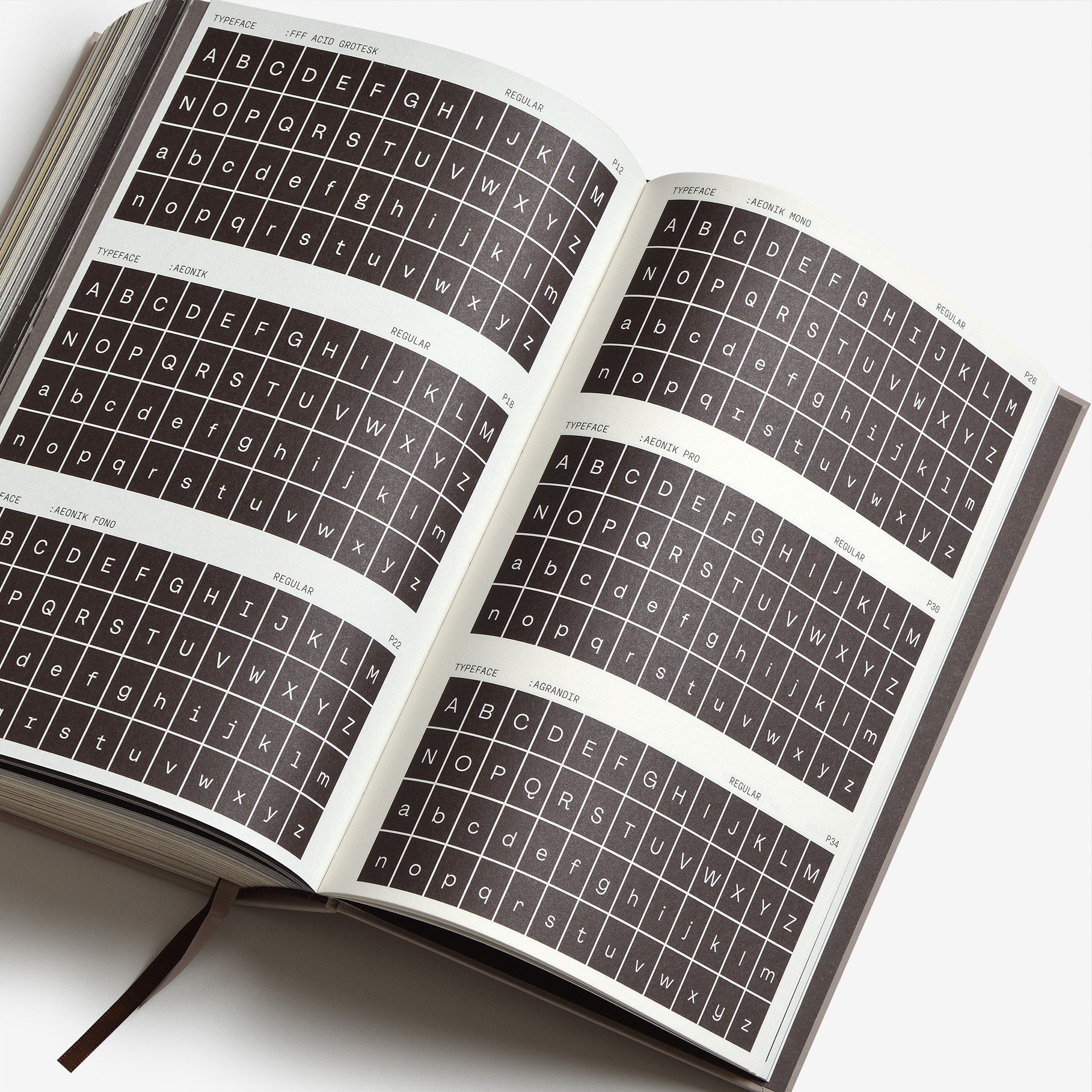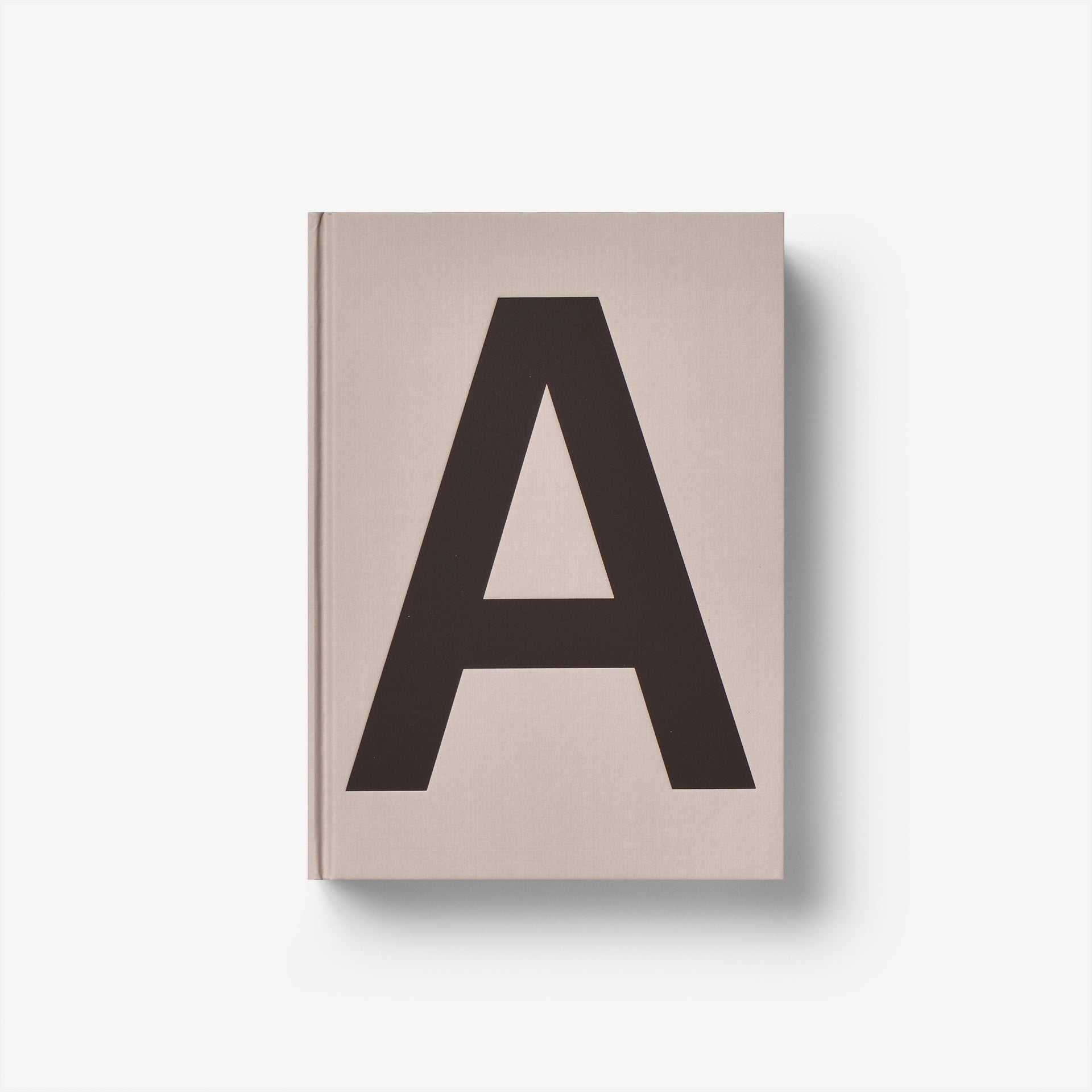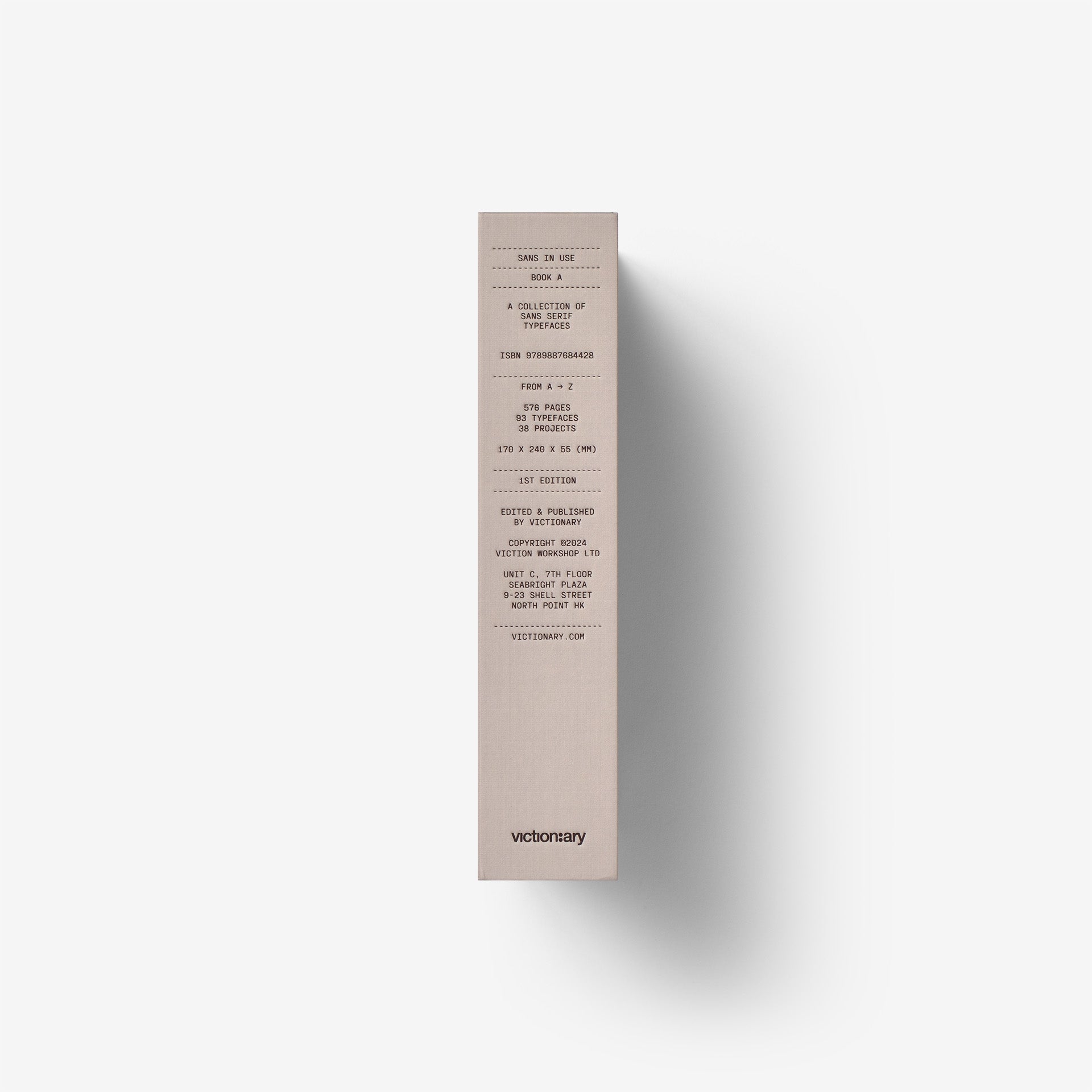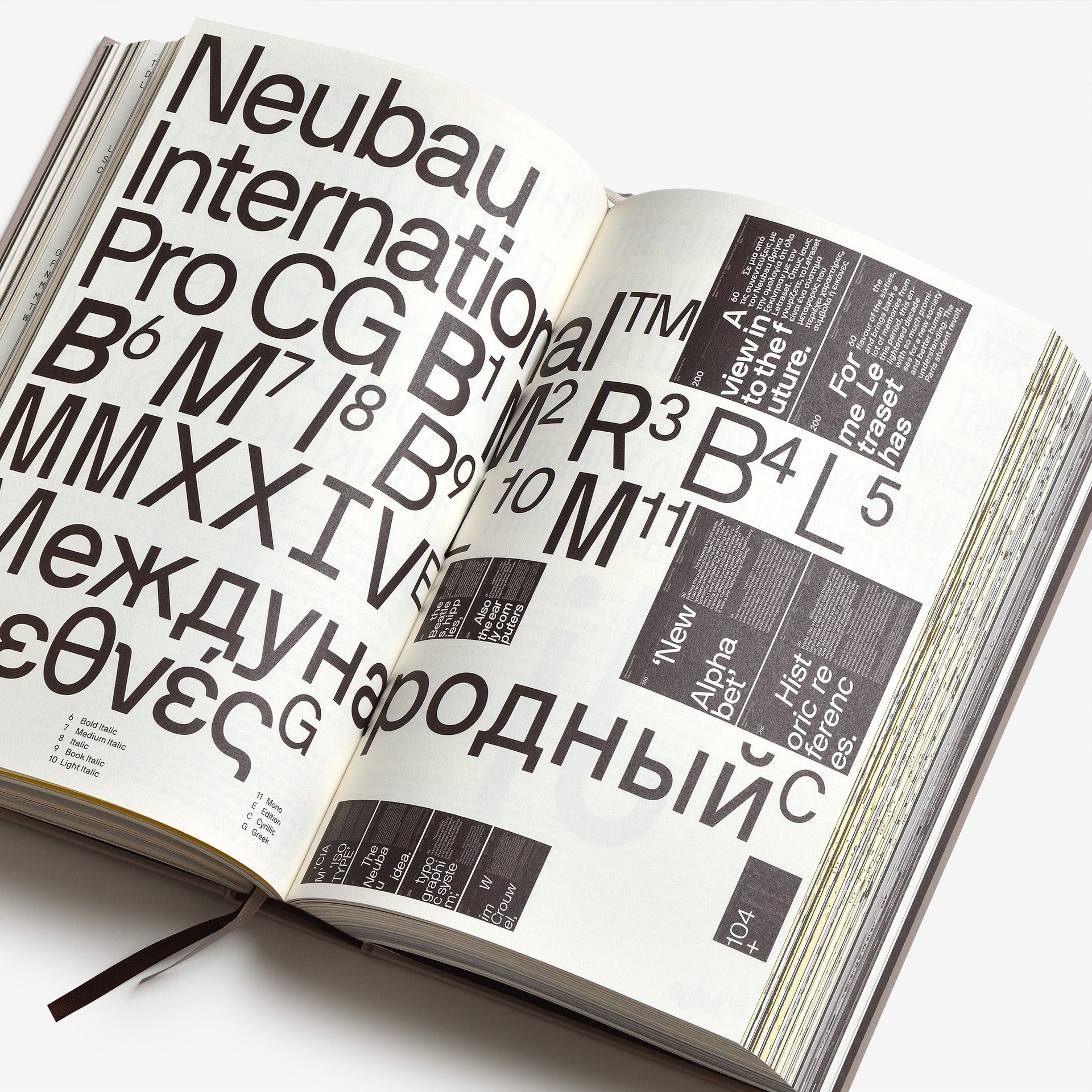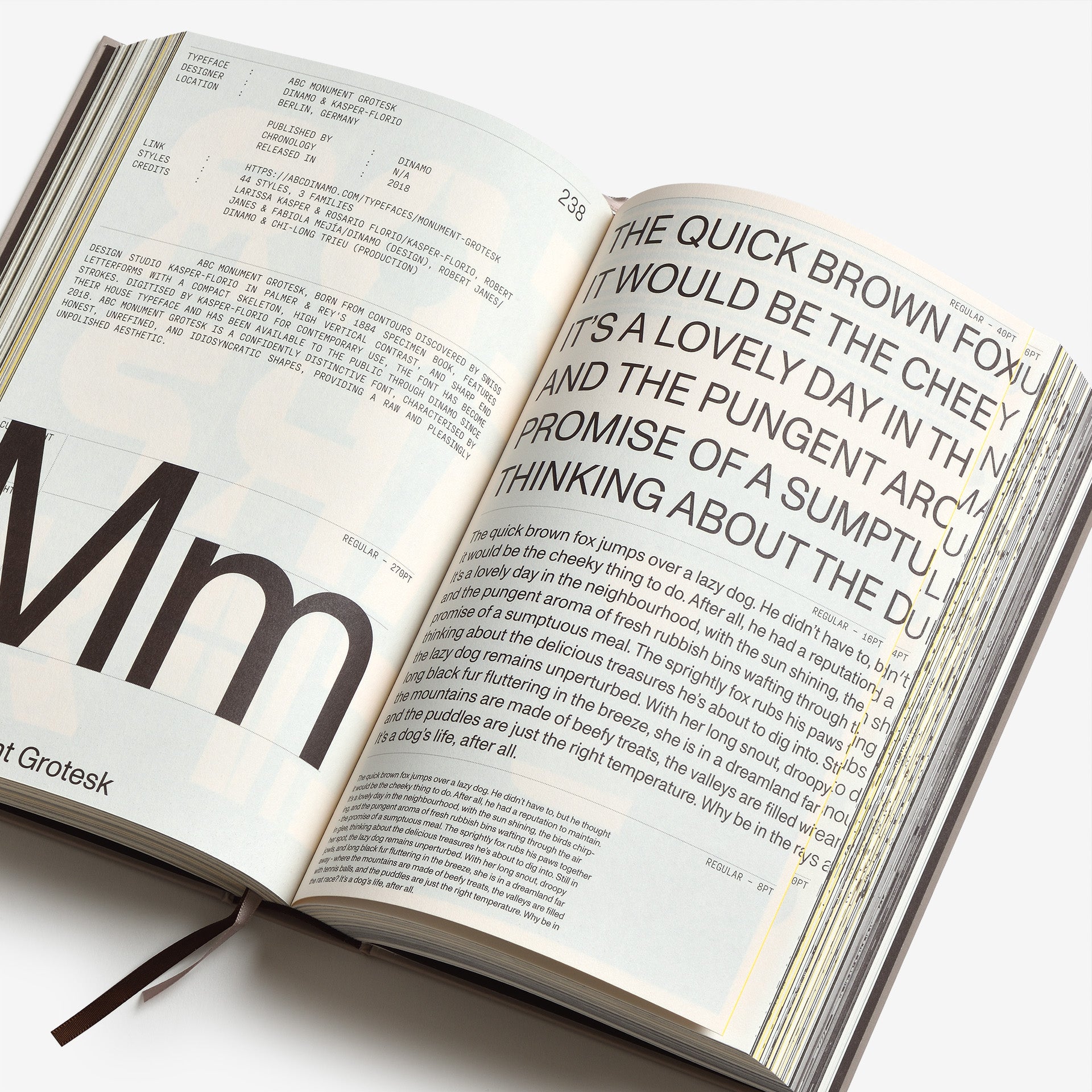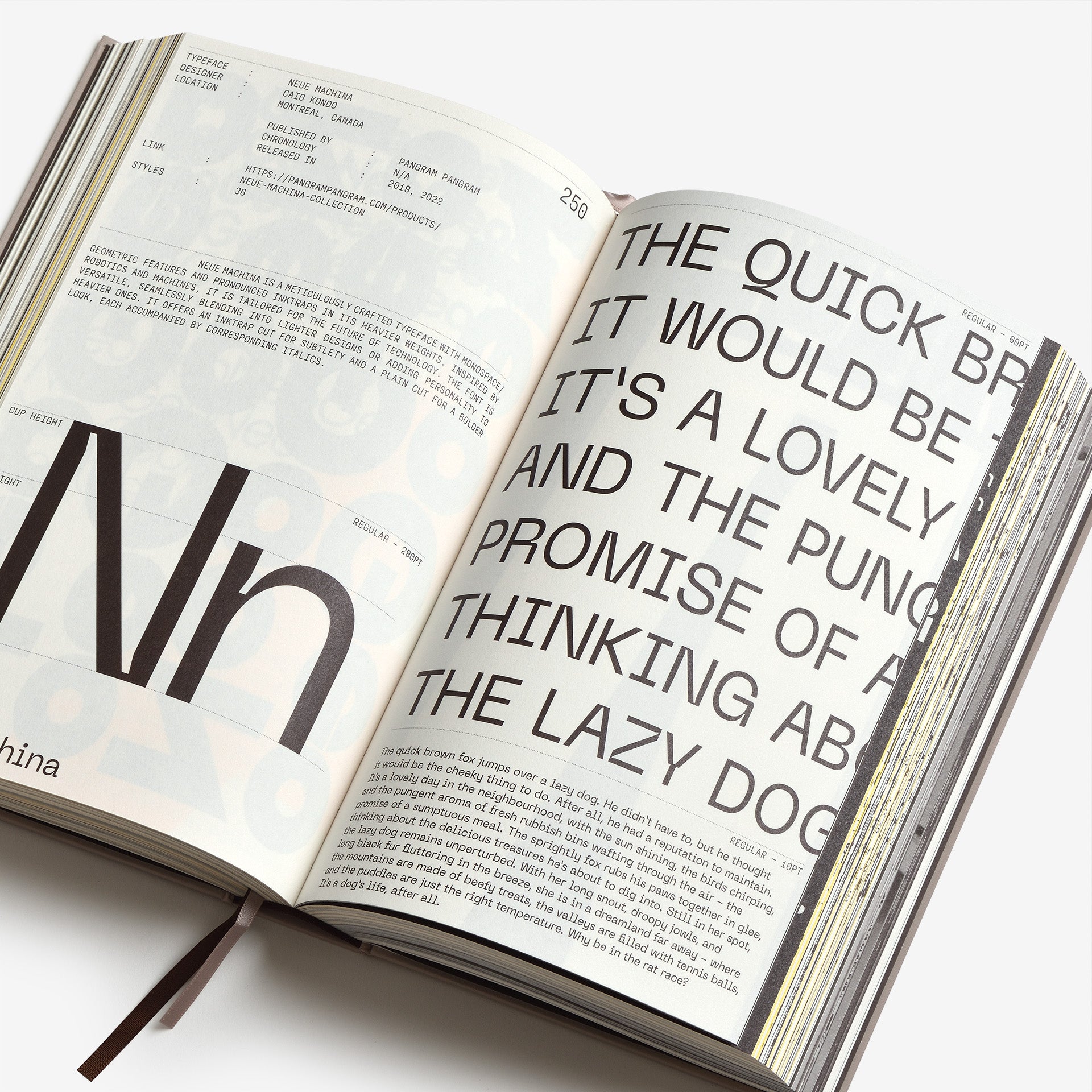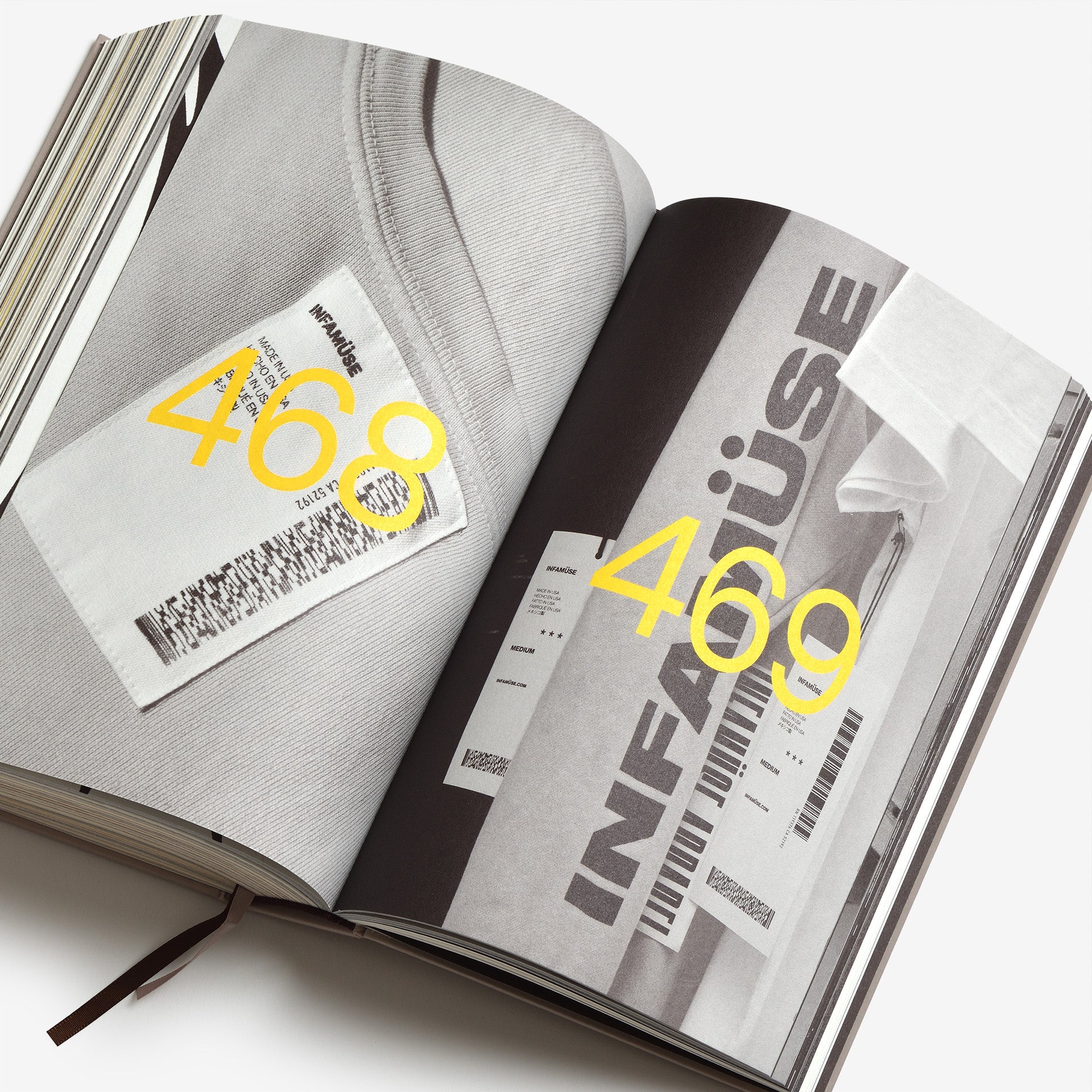
Sans in Use: A Collection of Sans Serif Typefaces
In the world of typography, it is not uncommon to see combinations of serif and sans serif typefaces in the same design. However, it takes skill to combine them in order to avoid tension and clashes, and ensure maximum readability of the text in the design.
From font weights to classifications, each font has its own distinct personality, and should be carefully paired to convey the right tone and mood of the design. Featuring a selection of type specimens and their design applications, Sans In Use collates the best combinations of the two typeface categories and serves as a reference point for inspiration-seeking designers and typographers.